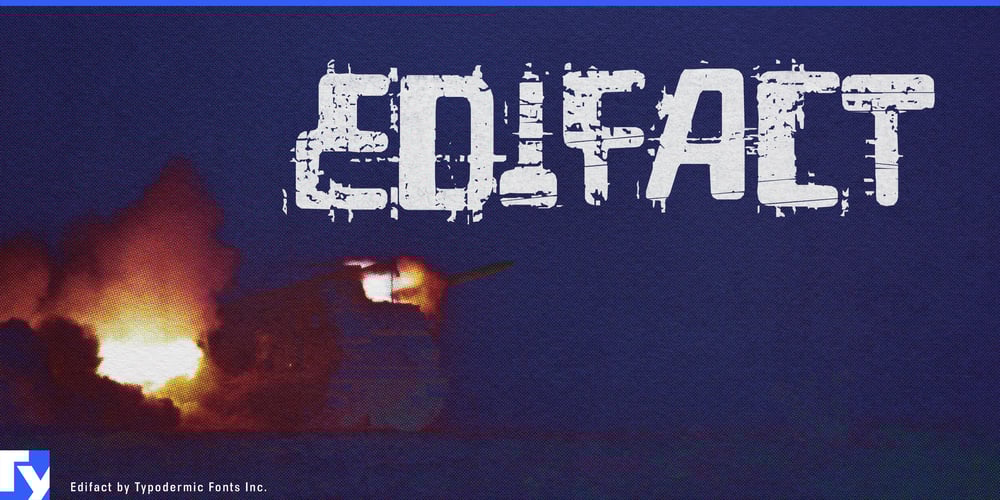
Edifact Font Family was designed by Ray Larabie and published by Typodermic. Edifact contains 1 styles and family package options. Step into the gritty world of Edifact, a display typeface that marries the vintage charm of 1960s magnetic ink lettering with a bold, post-apocalyptic edge. This is a statement piece designed to shatter expectations and captivate audiences.At its core, Edifact is a masterclass in controlled chaos. The typeface’s damaged aesthetic tells a story of survival and adaptation, perfect for designs that demand attention in our oversaturated visual landscape. But Edifact isn’t just about looks; it’s a powerhouse of functionality. OpenType ligatures unlock a treasure trove of custom combinations, allowing designers to fine-tune the level of distress and create truly unique typographic compositions. Edifact’s versatility shines in its ability to straddle multiple design realms. It effortlessly blends retro-futurism with a raw, weathered finish, making it equally at home in edgy editorial layouts, atmospheric movie posters, or avant-garde album covers. This typeface doesn’t whisper—it broadcasts your message with an unmistakable voice that resonates in our complex, often chaotic world.For designers working across a wide range of Latin-based European languages, Edifact offers comprehensive support. From the fjords of Norway to the plains of Hungary, from the coast of Portugal to the forests of Poland, this typeface ensures your post-apocalyptic vision can be articulated with precision. Edifact’s character set spans the linguistic landscape of Western, Central, and Eastern Europe, embracing the nuances of each language it covers.In a design landscape cluttered with the pristine and polished, Edifact stands as a testament to the beauty of imperfection. It’s more than a typeface—it’s an invitation to embrace the unconventional, to find strength in apparent weakness, and to communicate with authenticity in a world that often feels on the brink. For the designer unafraid to push boundaries and challenge norms, Edifact isn’t just a font choice—it’s a creative partner in rebellion.